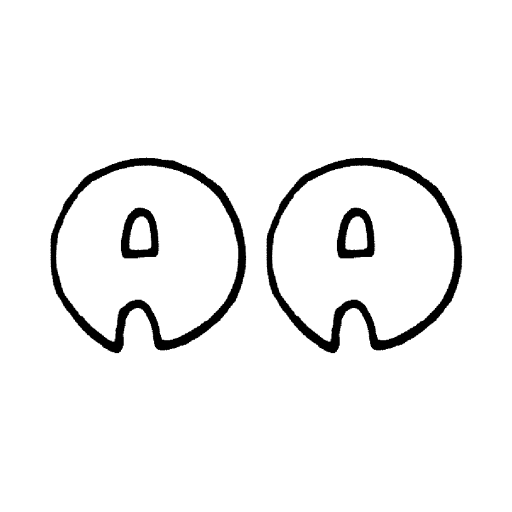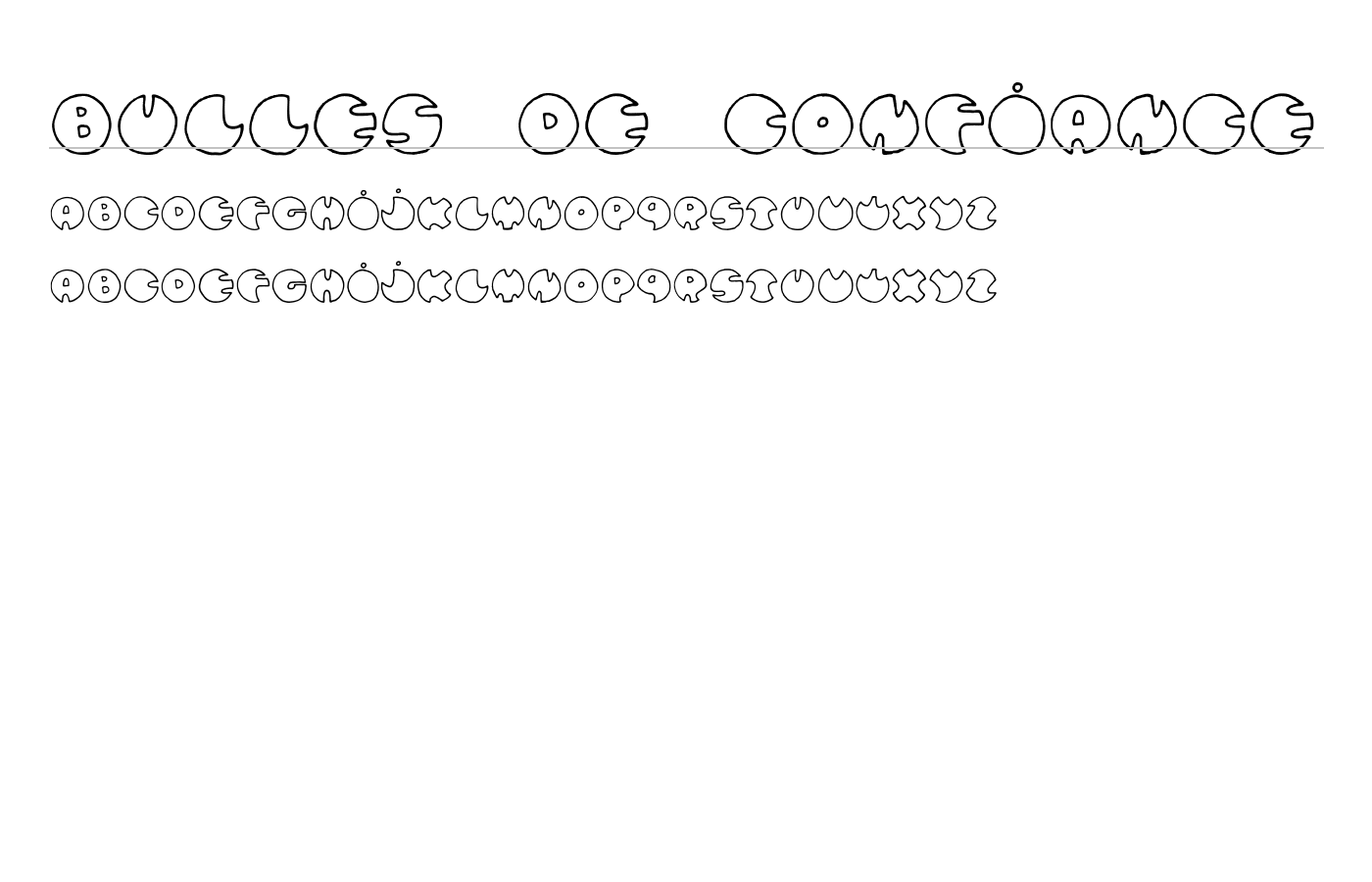
Bulles de Confiance is a playful, rounded display font with a bubbly, hand-drawn feel. Its irregular, thick strokes and whimsical shapes give it a friendly and informal personality, making it great for creative projects, children's materials, and fun branding. This font works best in logos, posters, and headlines where a lighthearted and approachable look is desired.
bulles de confiance Font
About bulles de confiance Font